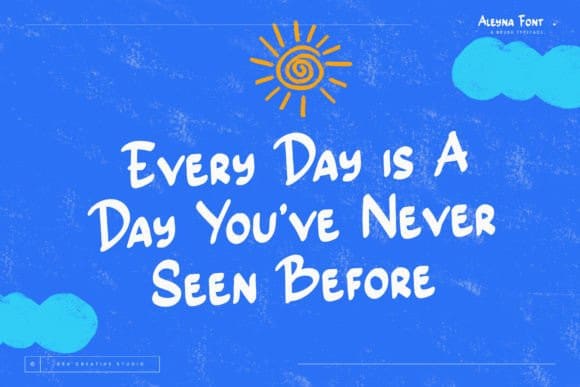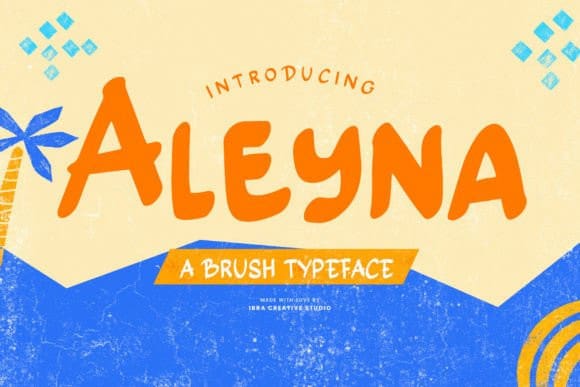
Aleyna Display Font
Aleyna Display Font is a brush typeface, dances across the canvas of design with expressive strokes and dynamic flair. The bold and fluid letterforms capture the essence of hand-painted artistry, evoking a sense of spontaneity and creativity. Aleyna’s brush strokes carry an energetic rhythm, creating a visual symphony that brings a lively and authentic touch to any project.